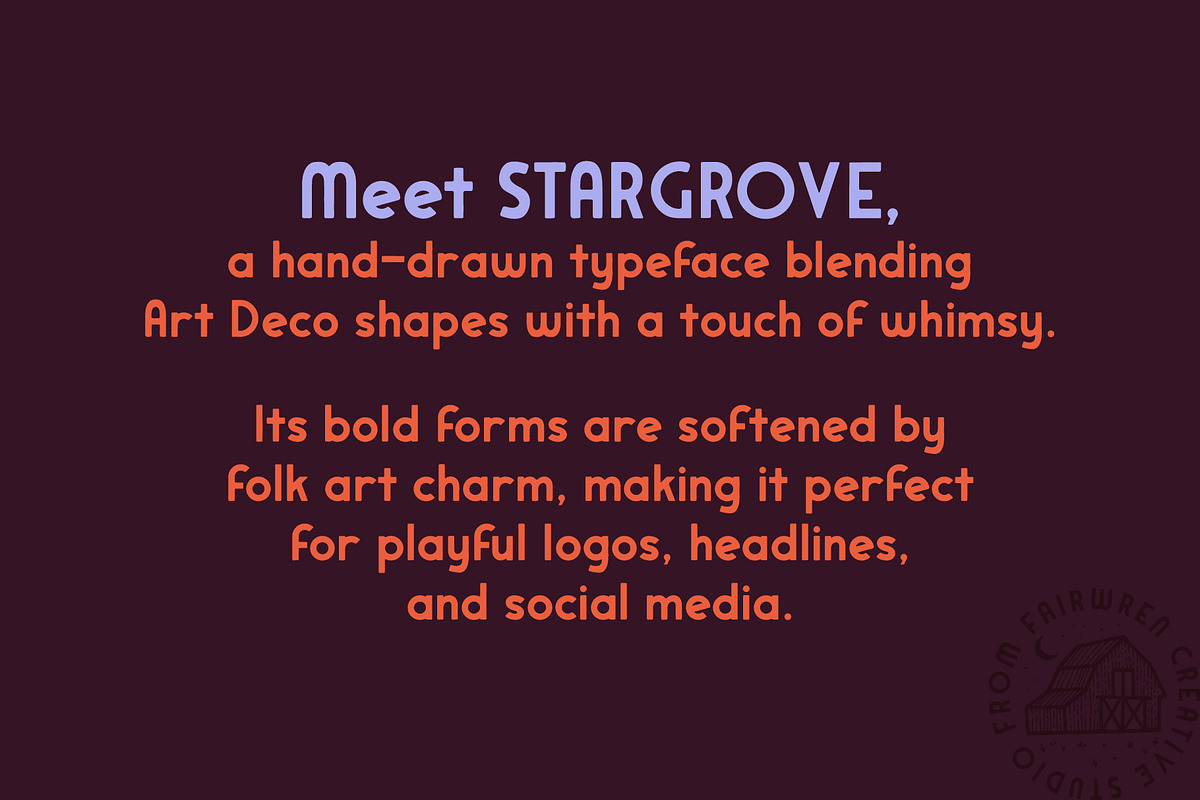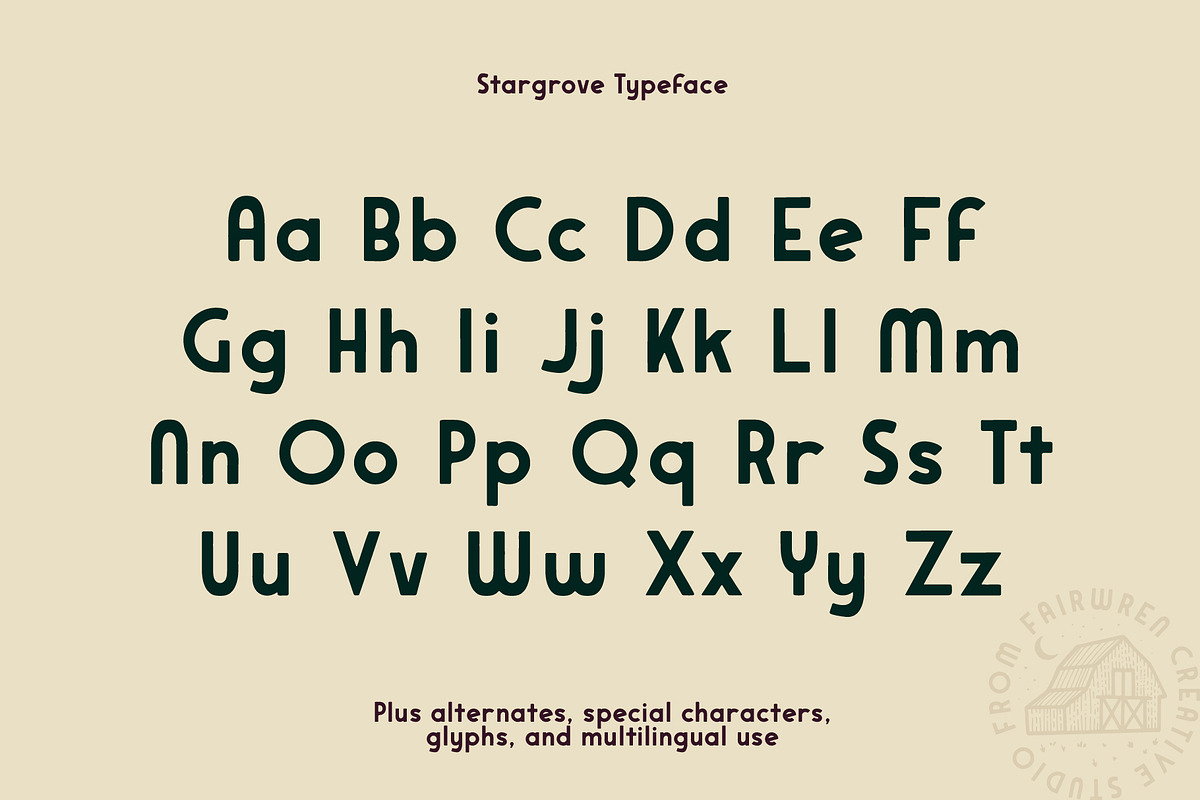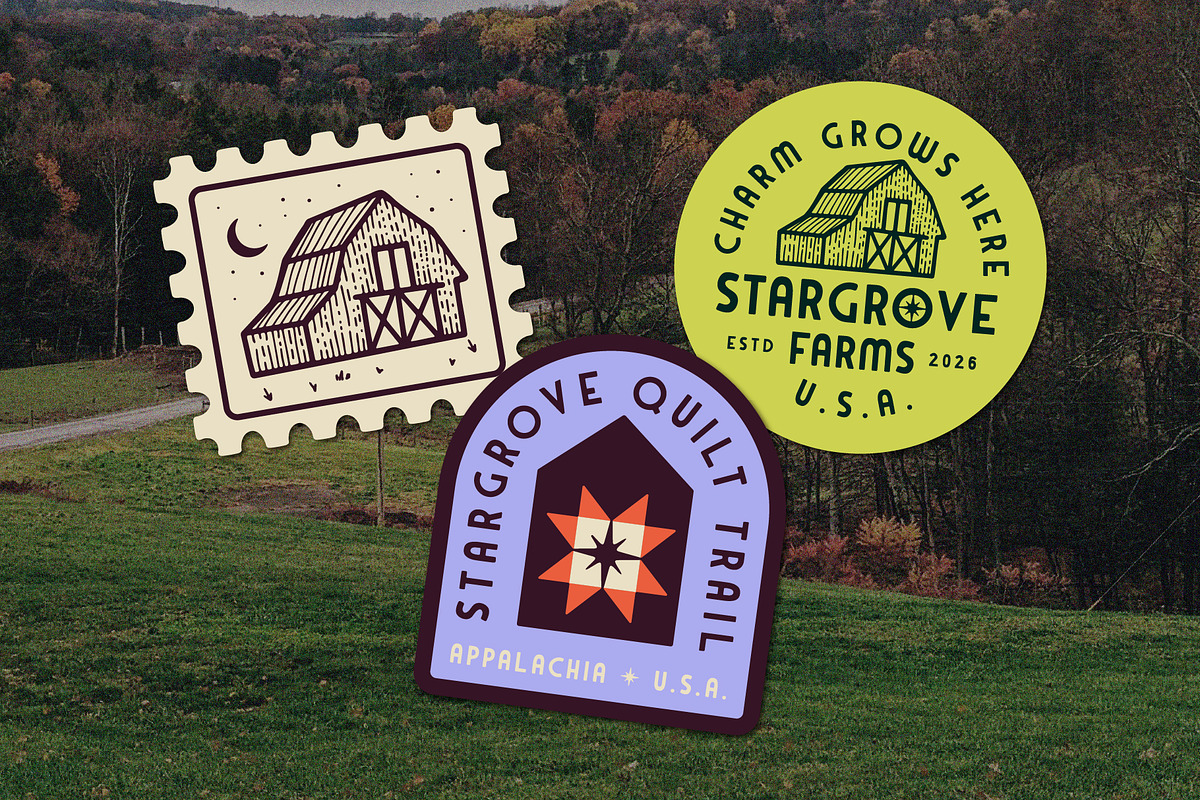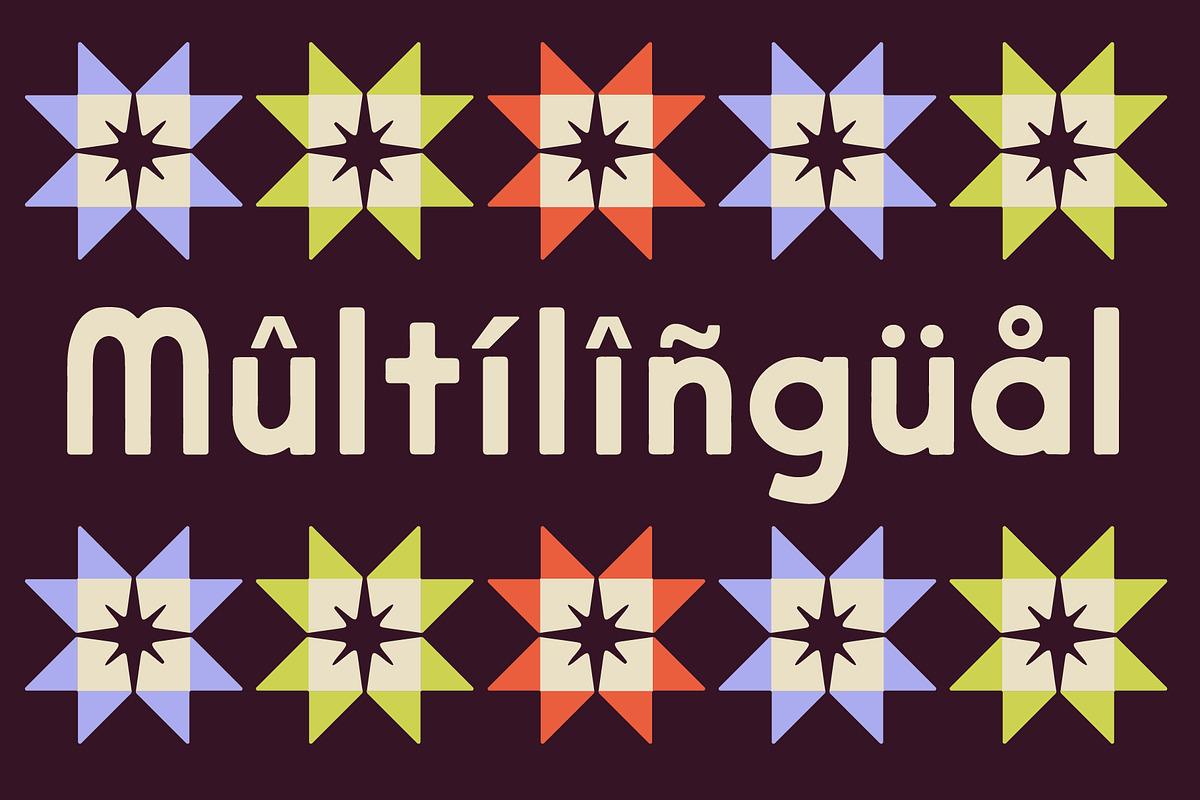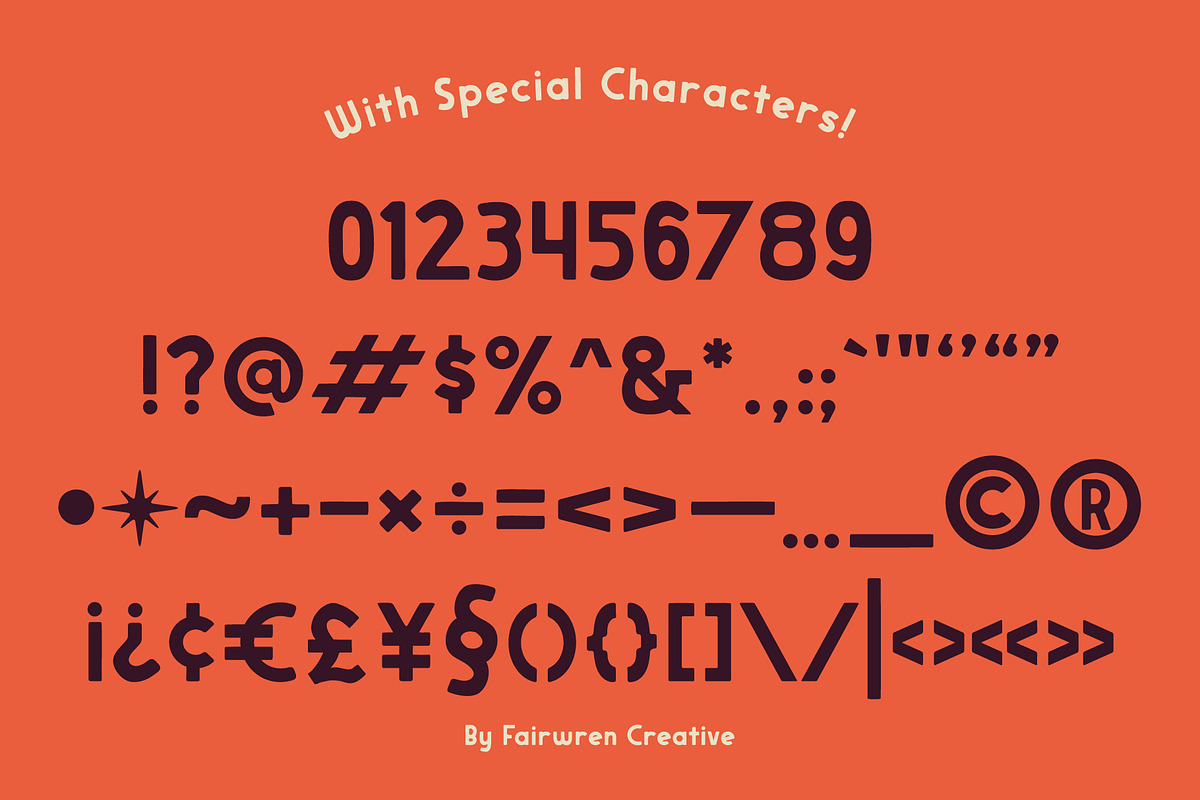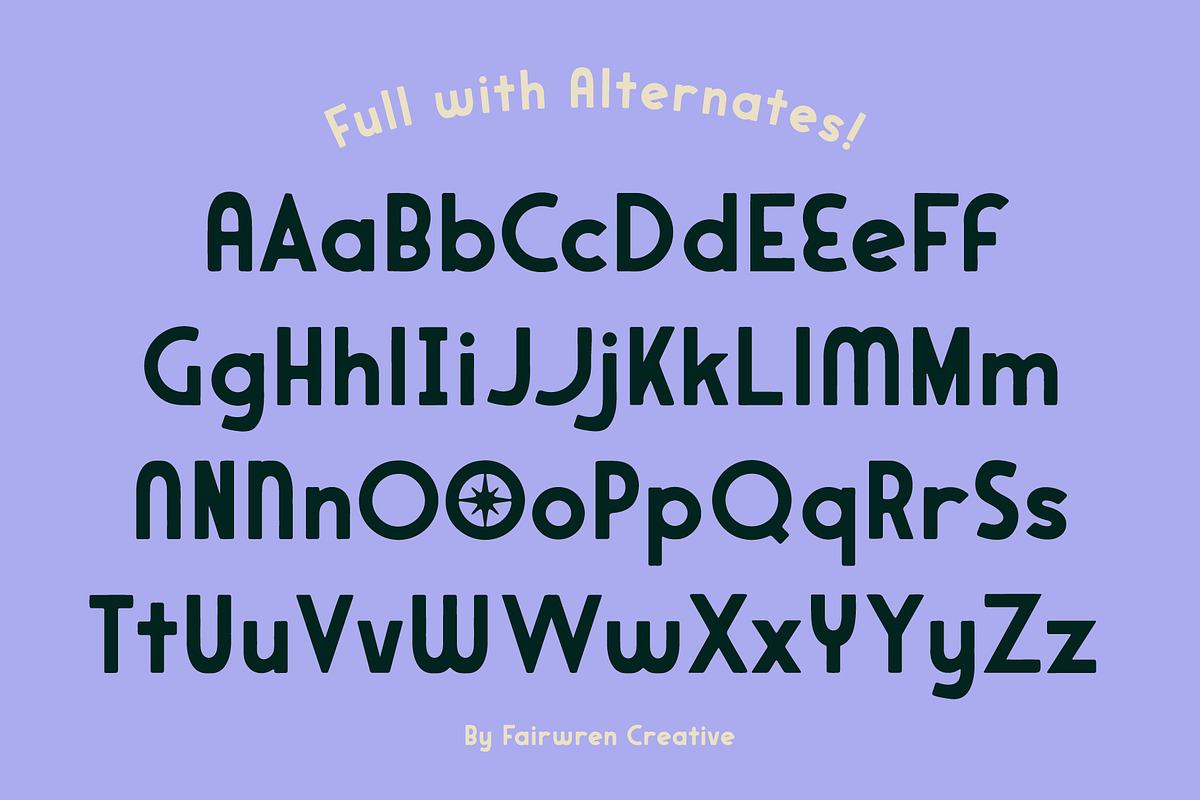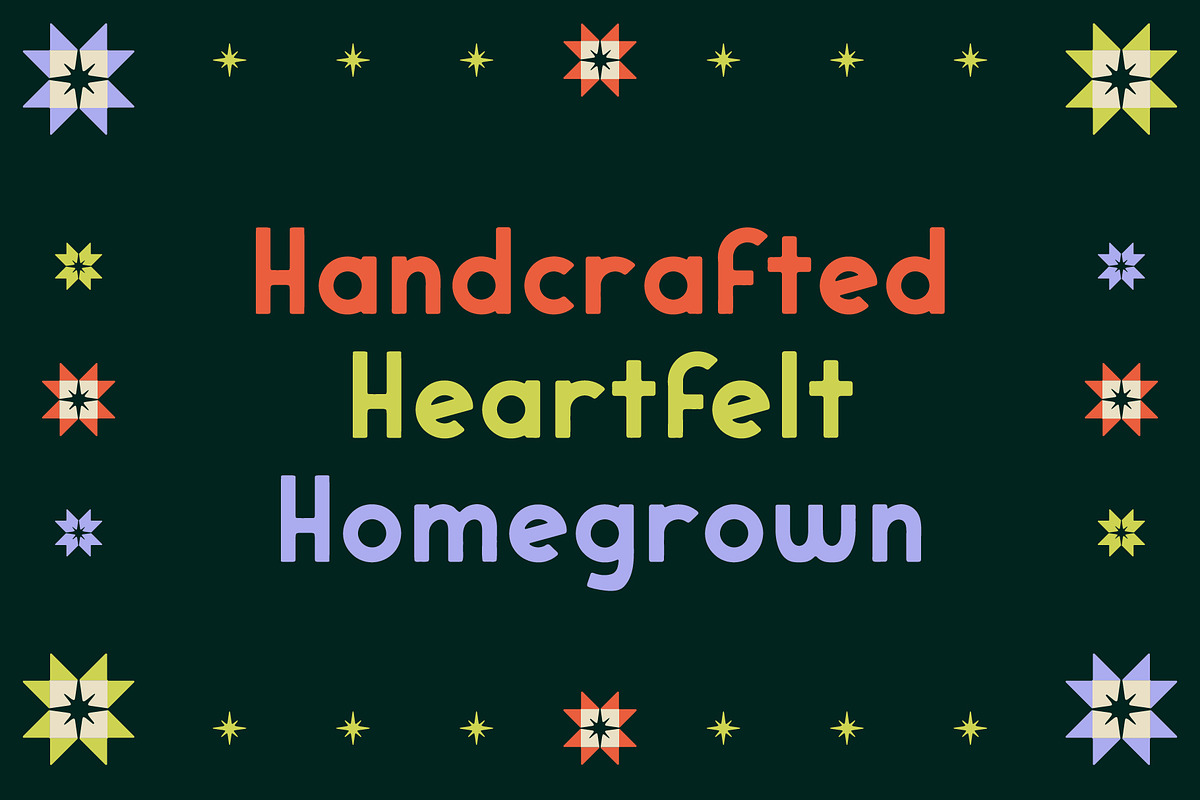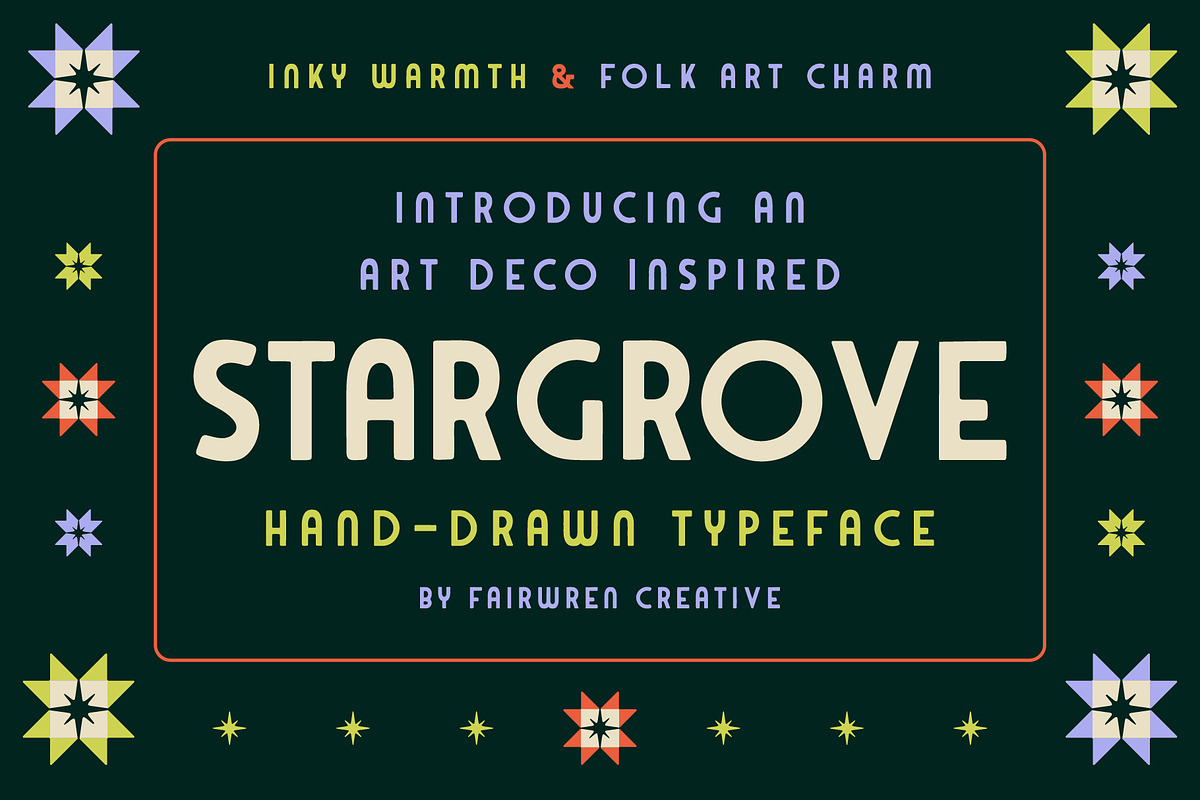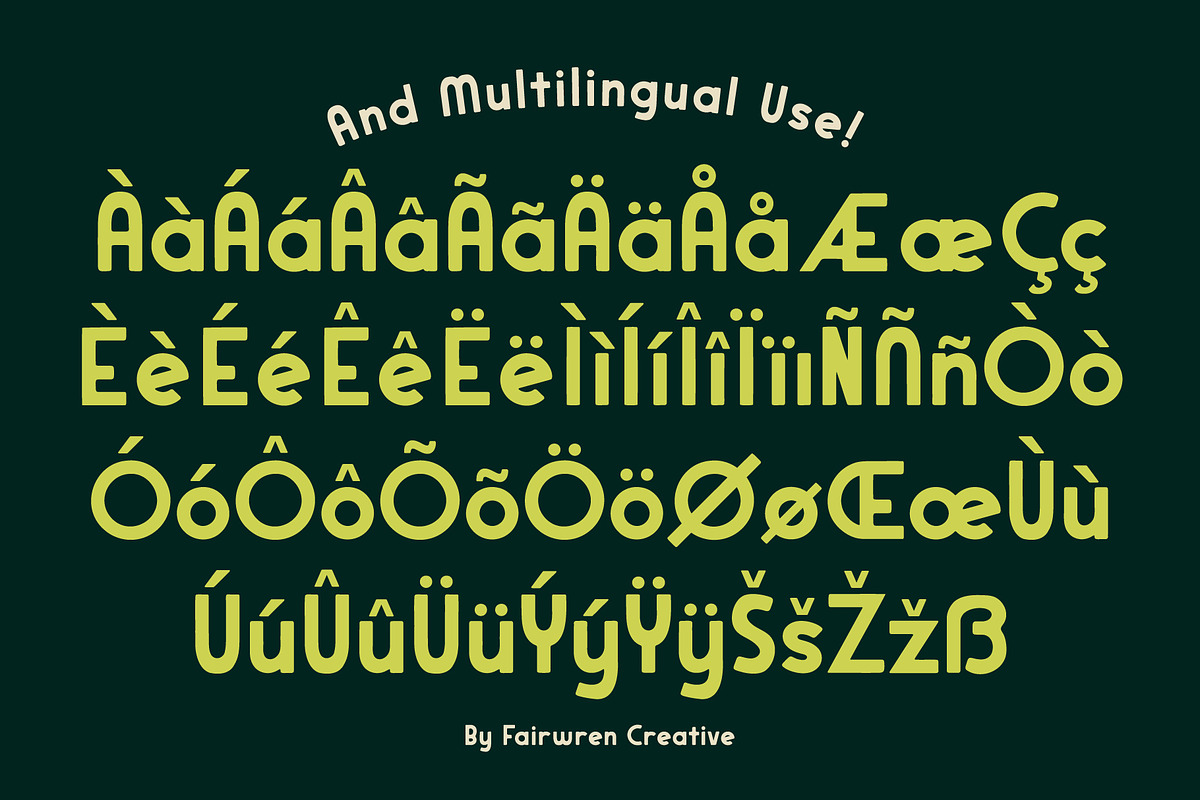
Stargrove
Stargrove is a hand-drawn typeface blending Art Deco shapes with a touch of whimsy.
Its bold forms are softened by folk art charm, making it perfect for playful logos, headlines, and social media.
Includes: ✔️ Uppercase and lowercase letterforms ✔️ Numbers, Symbols, and Punctuation ✔️ Alternate characters for variety ✔️ Multilingual support